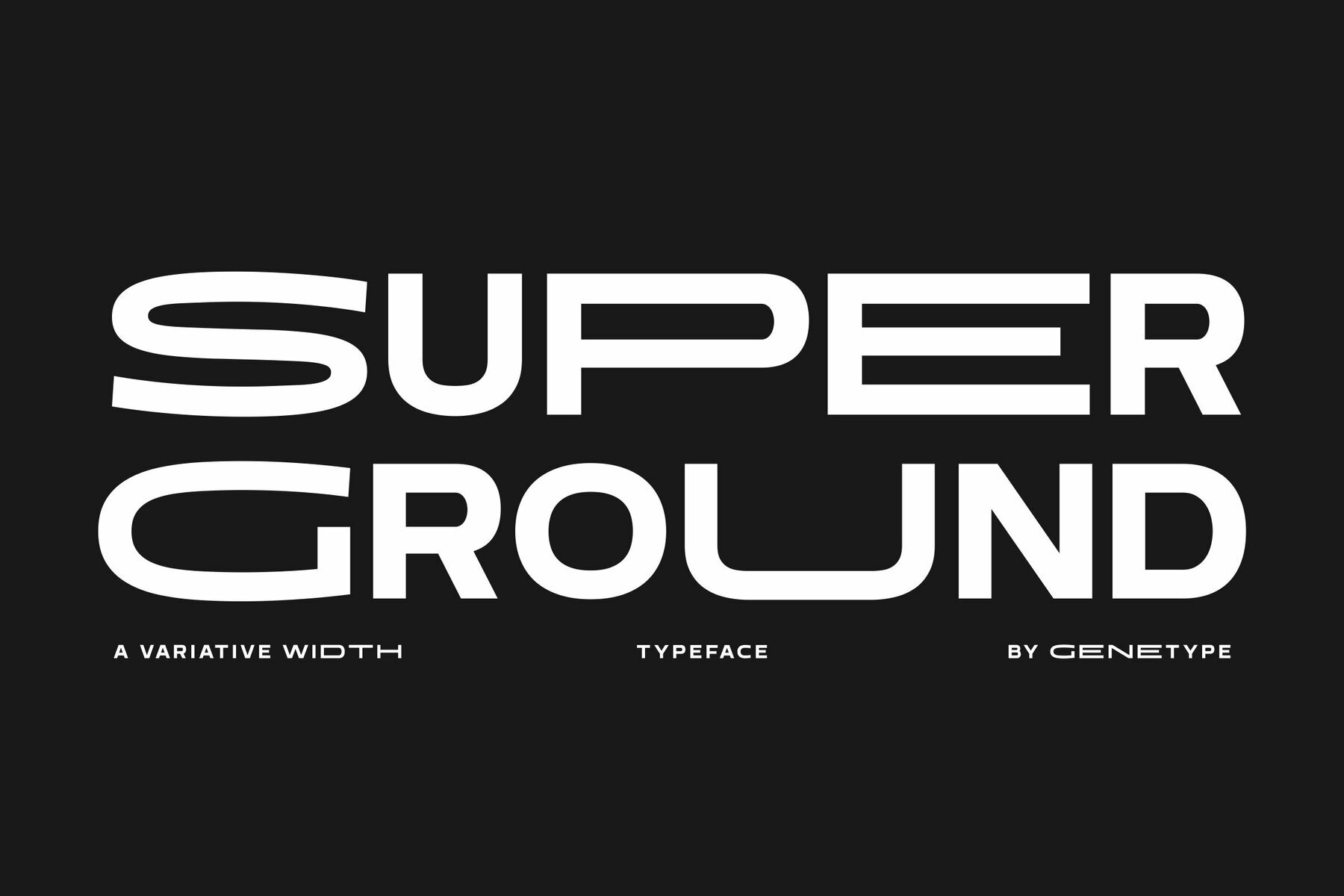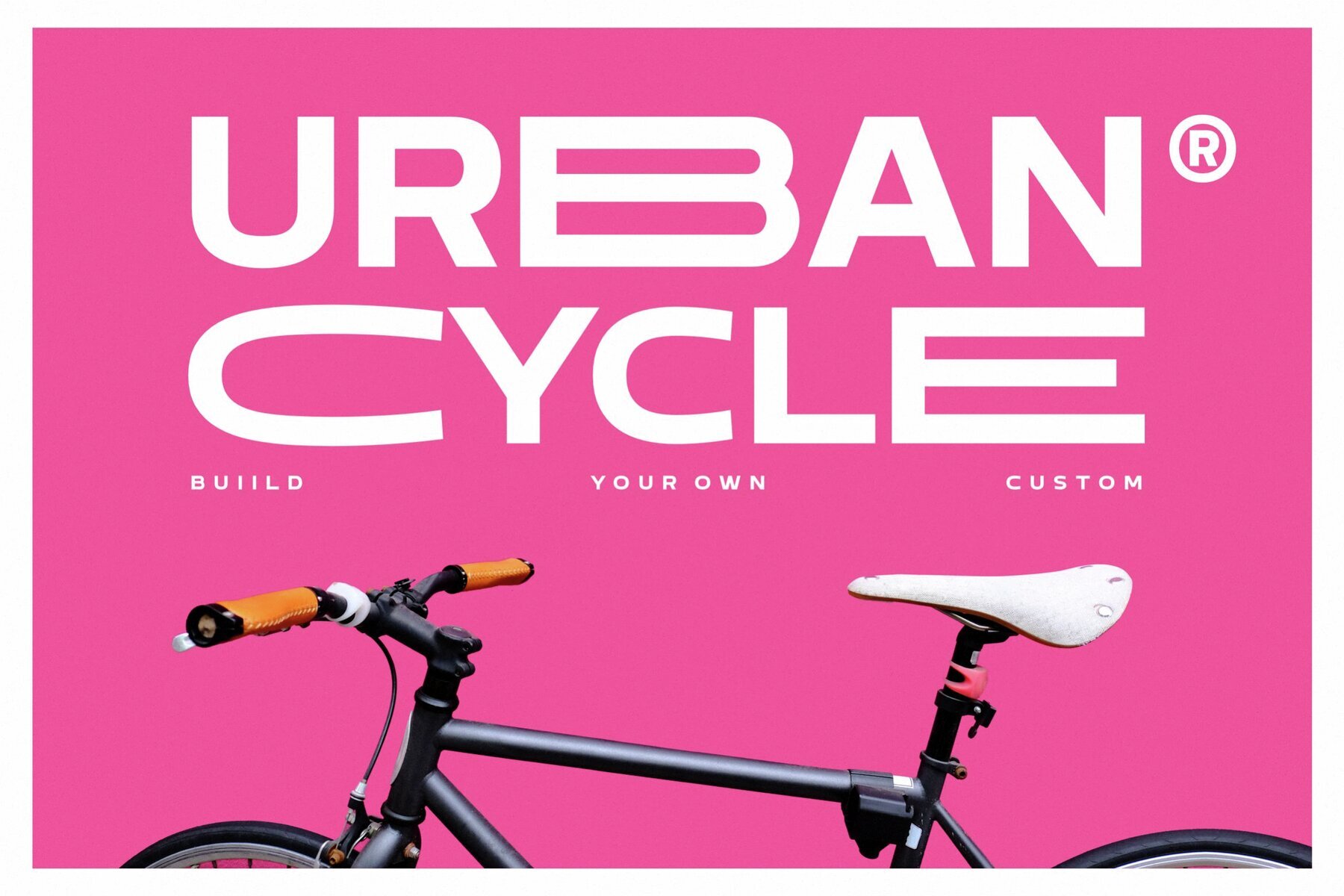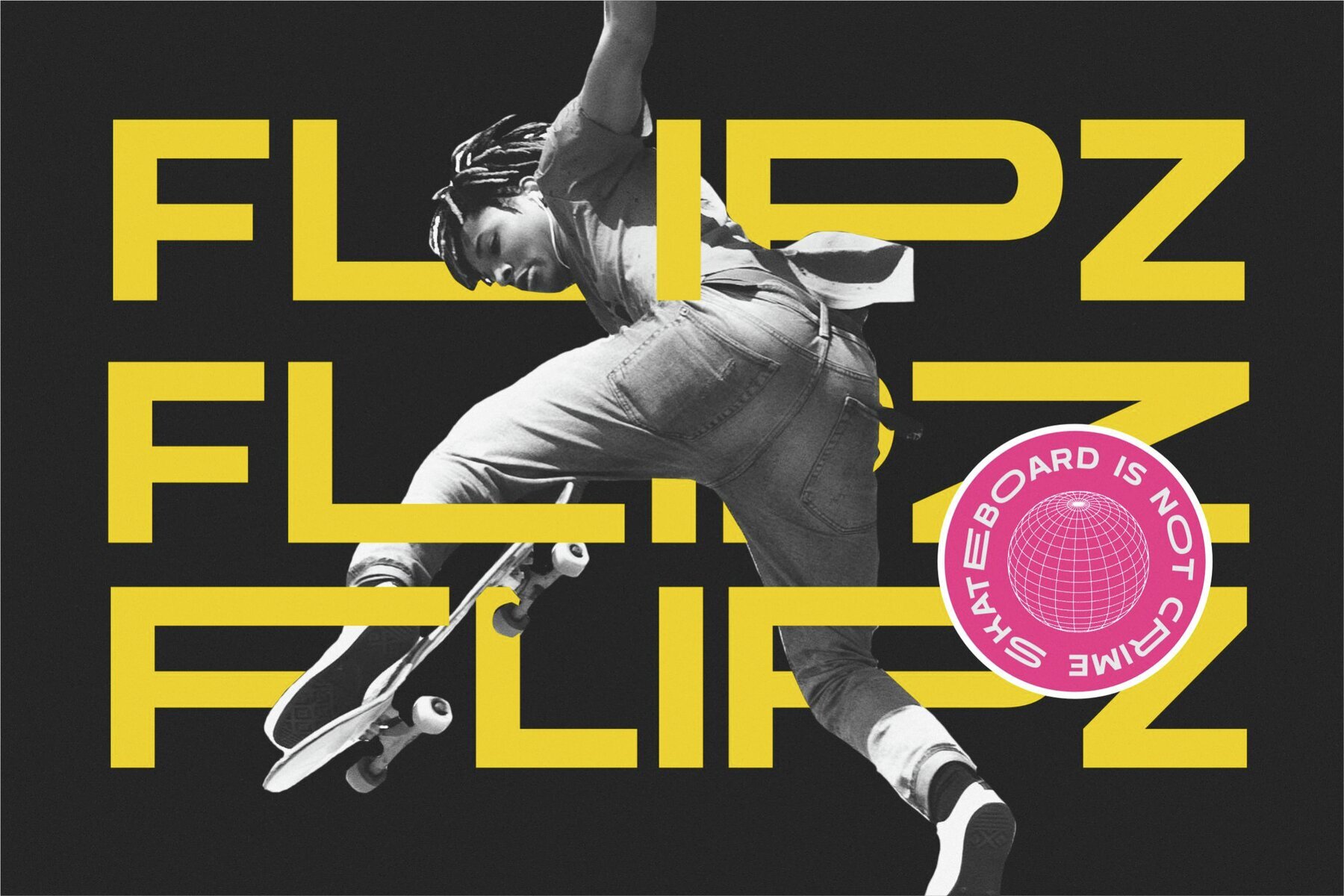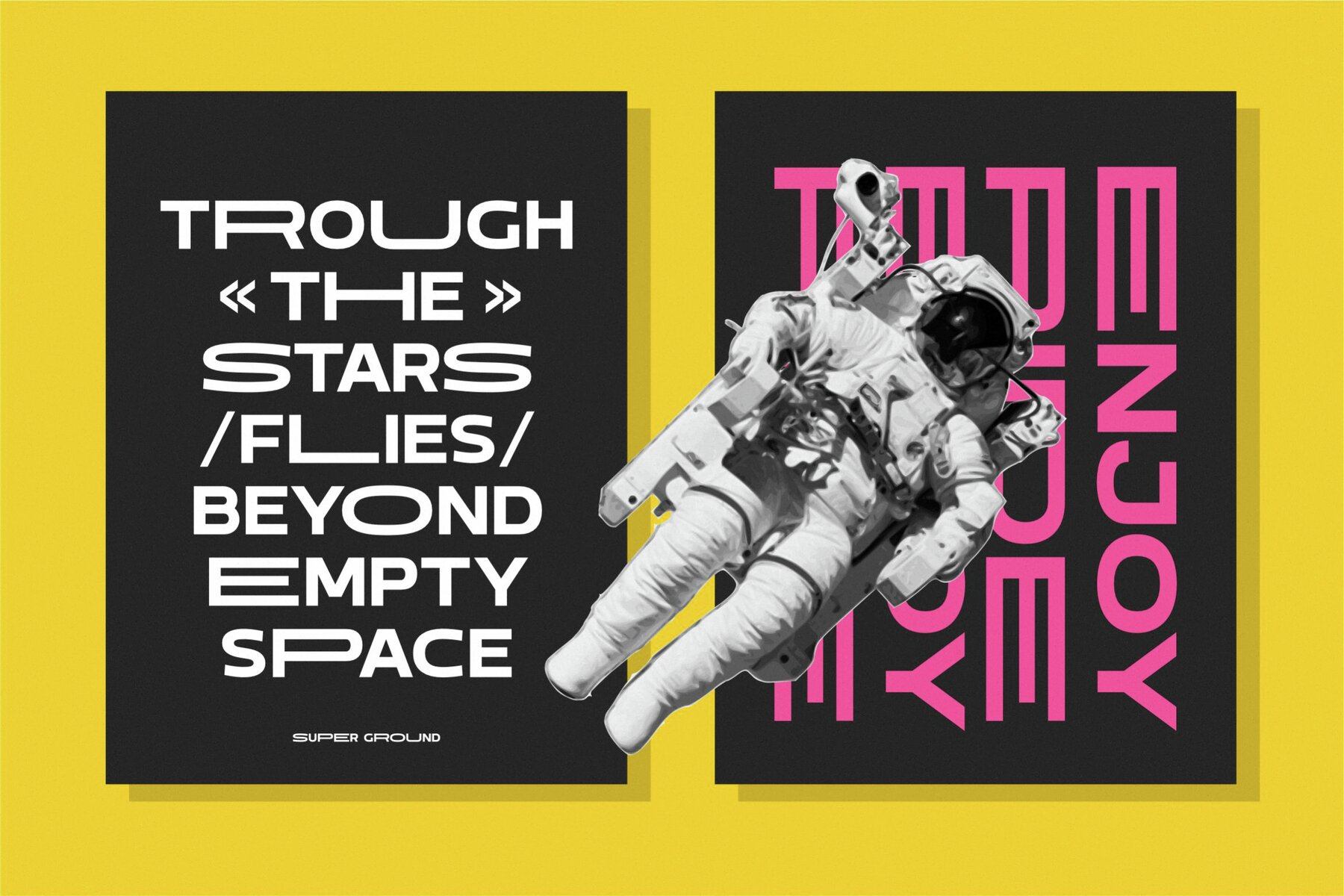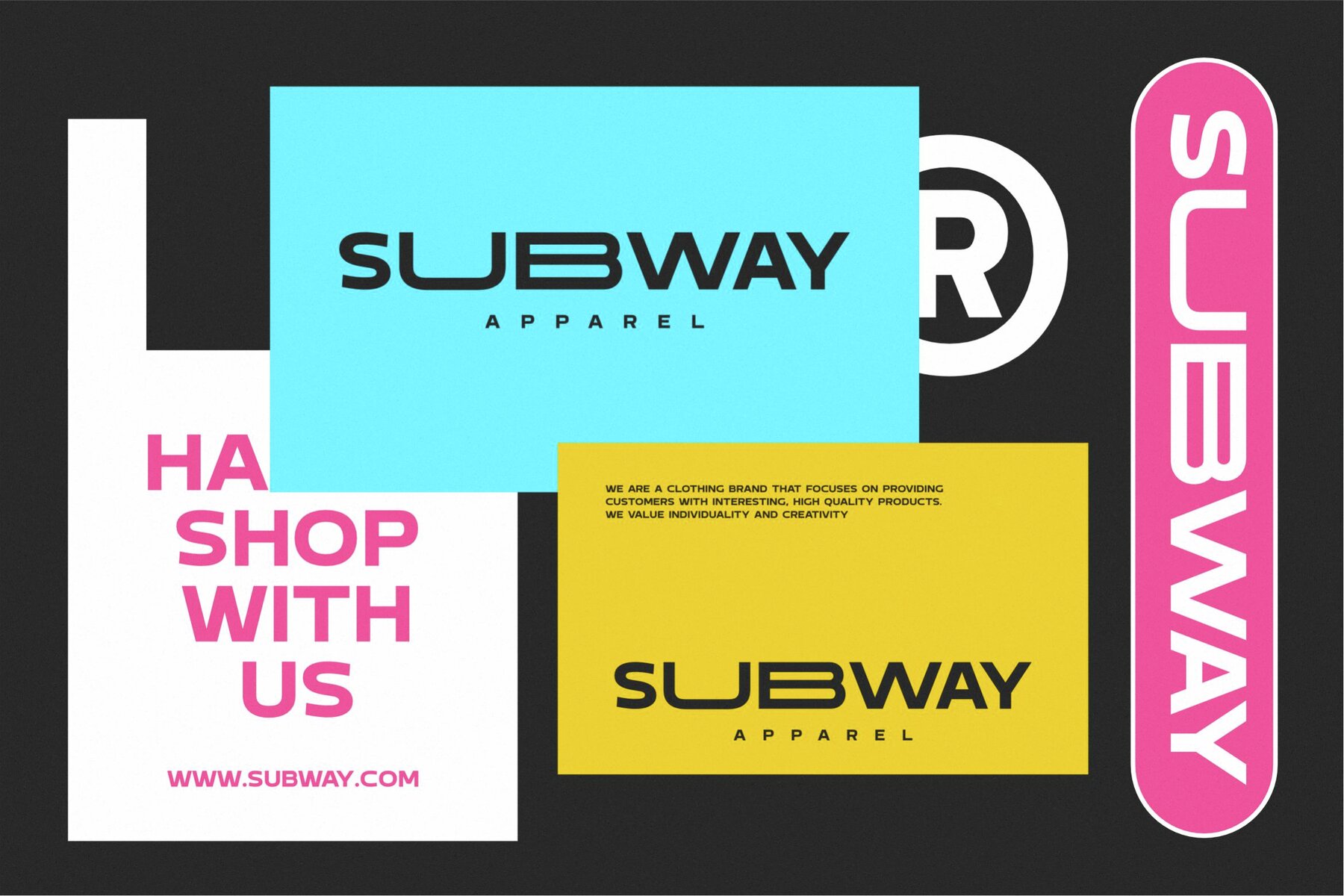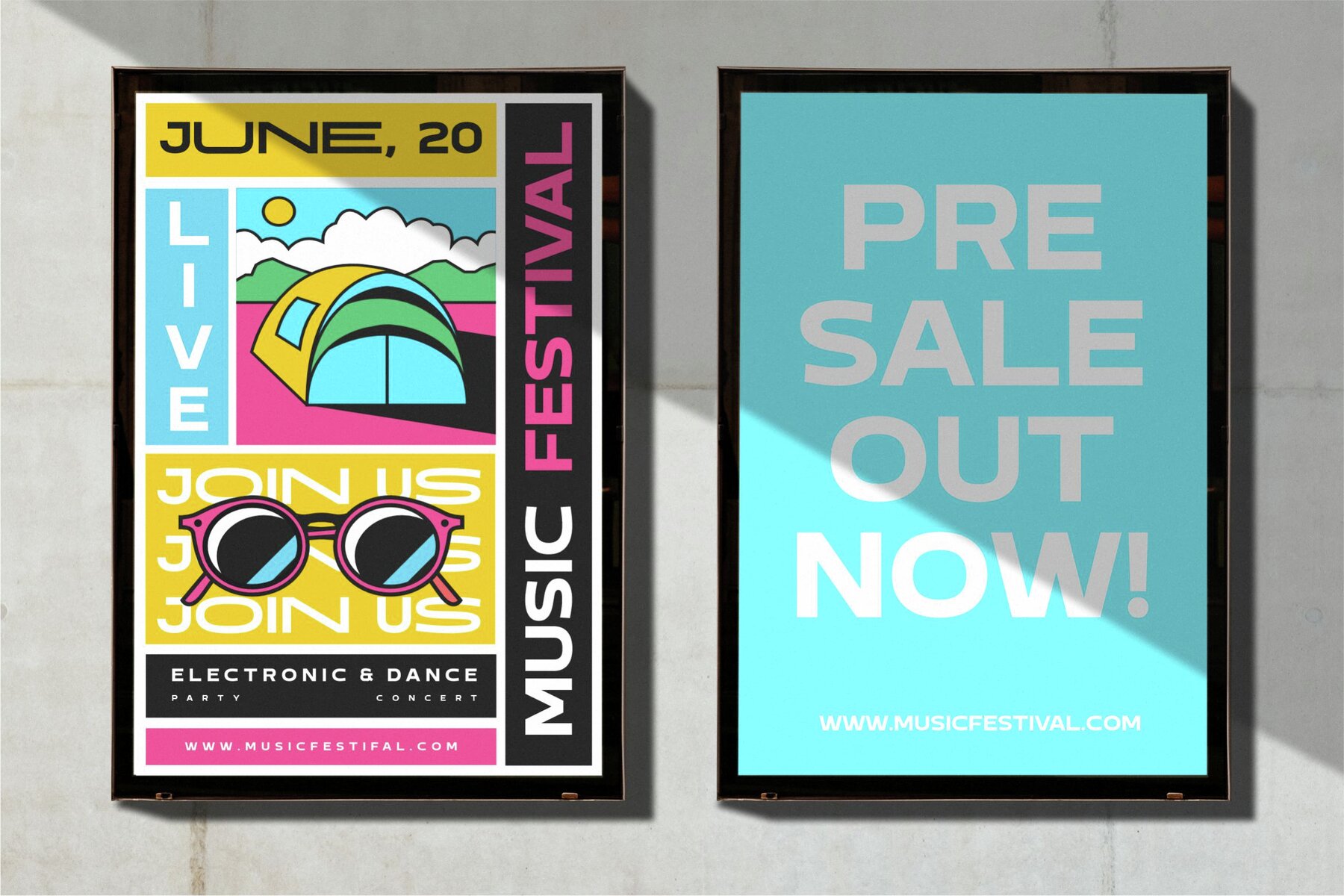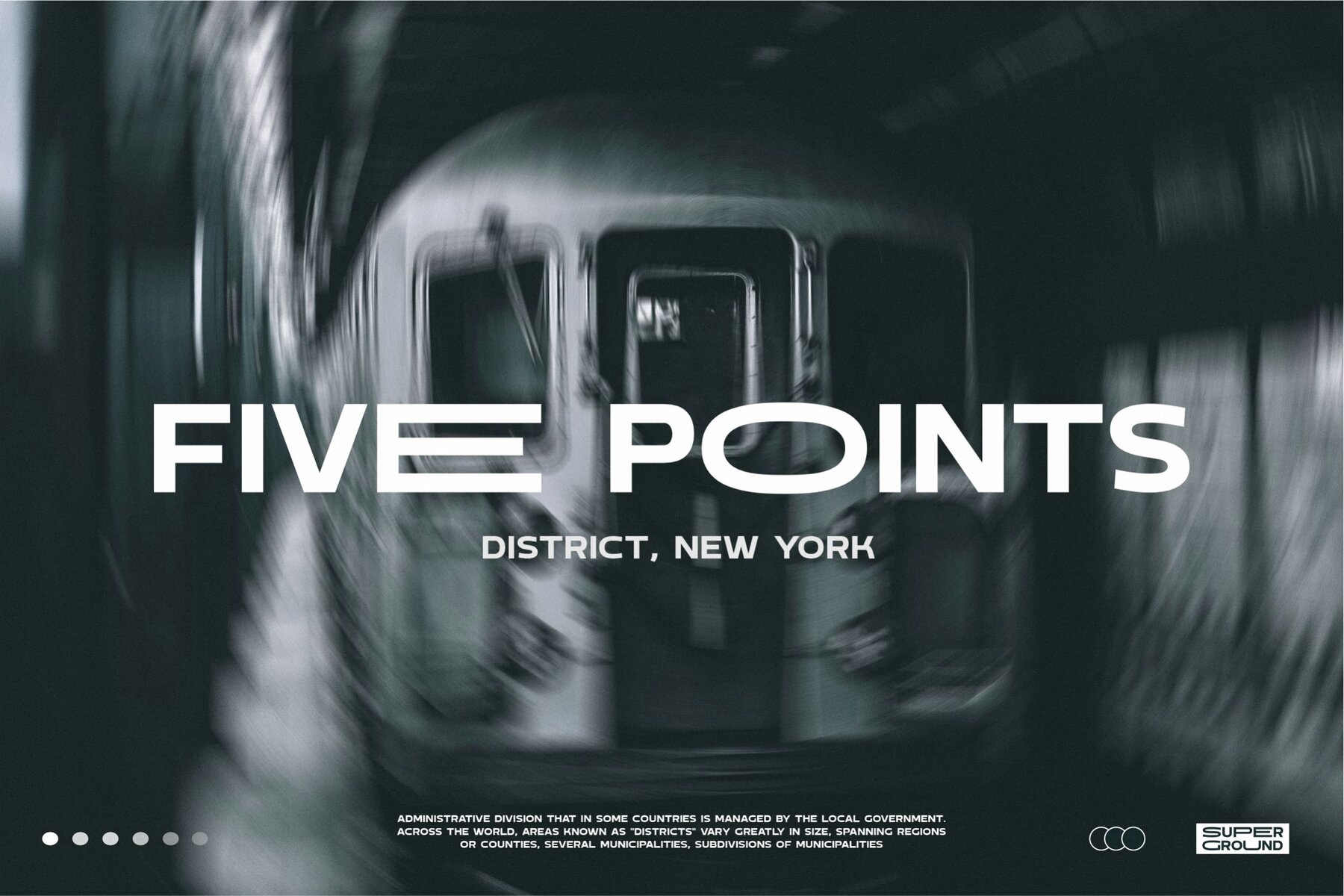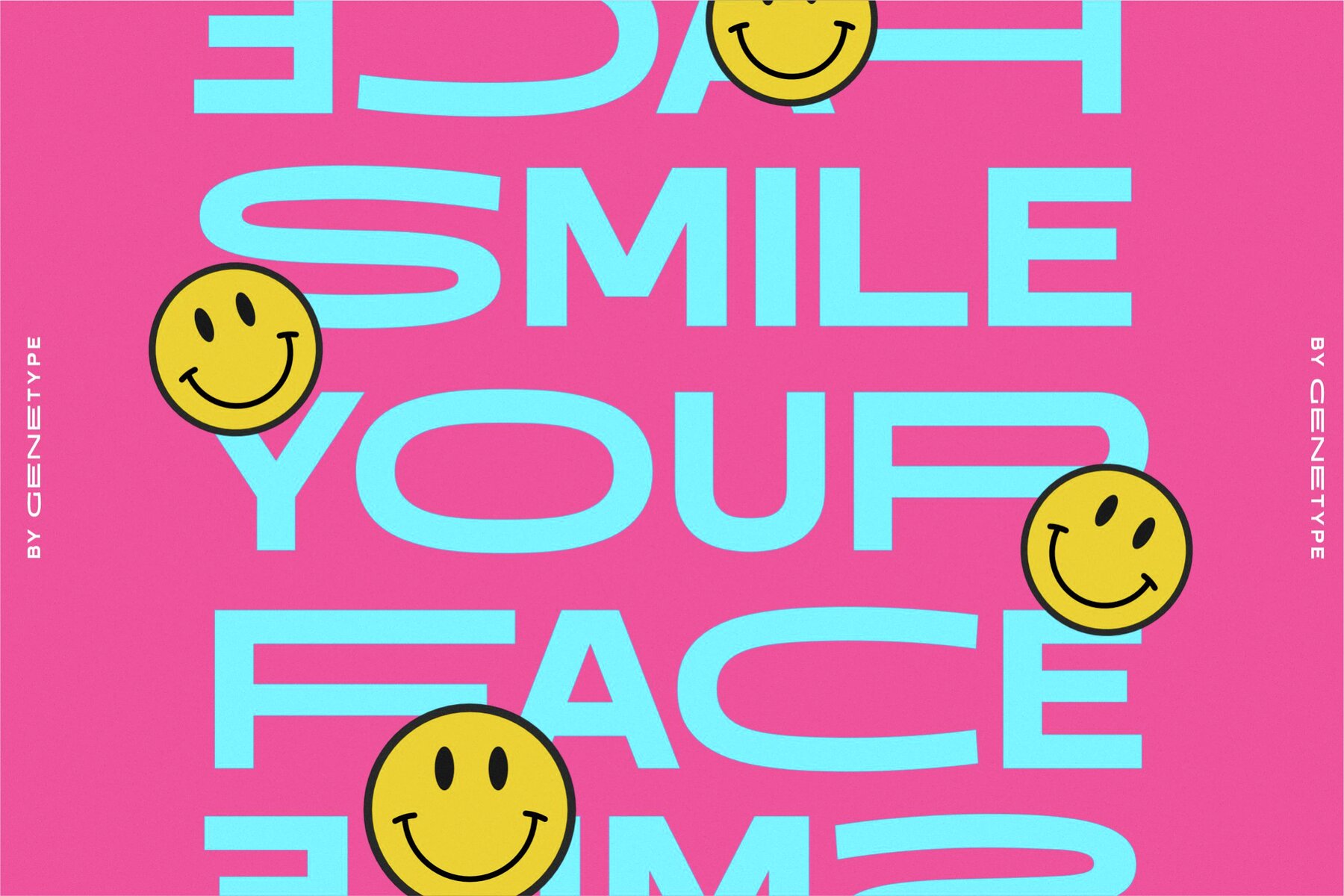
Super Ground Font
Super Ground
Step into a world of limitless creativity with Super Ground, a wide sans serif font designed to amplify your design impact. Its spacious letterforms provide a bold canvas, perfect for captivating headlines and eye-catching logos.
Embrace the power of width and redefine your projects with this versatile typeface. Super Ground offers a unique balance of strength and elegance, allowing your creativity to flow freely and make a statement in any design context.